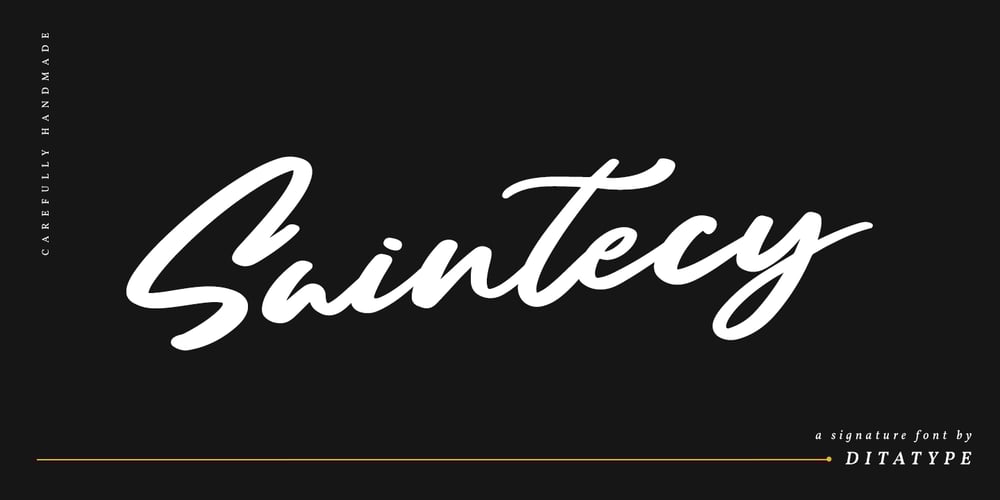
Saintecy Font Family was designed by Donis Miftahudin and published by Ditatype. Saintecy contains 1 styles and family package options. Saintecy is an equally relaxed and timeless handwritten font. It features an incredibly classic style, while still keeping a friendly feel. Saintecy is the perfect font for making original and outstanding designs, whether for formal or informal projects.Featured : Accents (Multilingual characters) PUA encoded Numerals and Punctuation (OpenType Standard) Full Support Dita Type